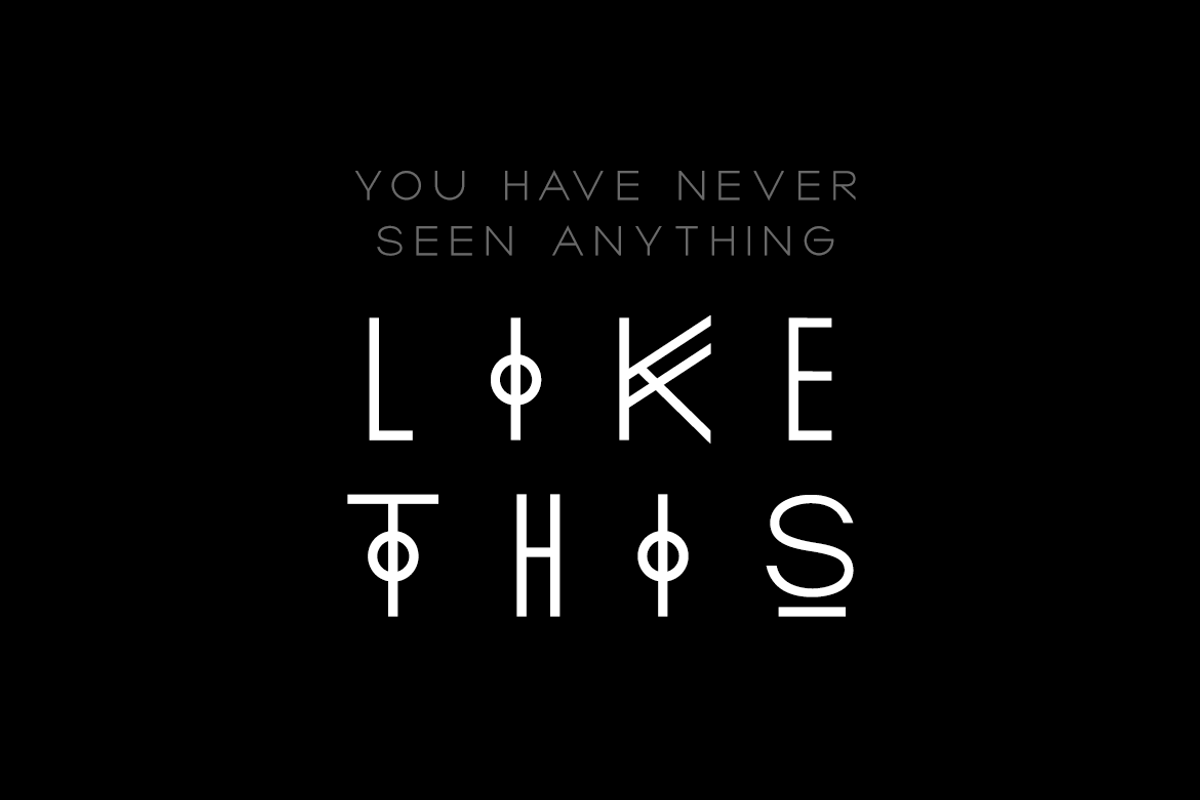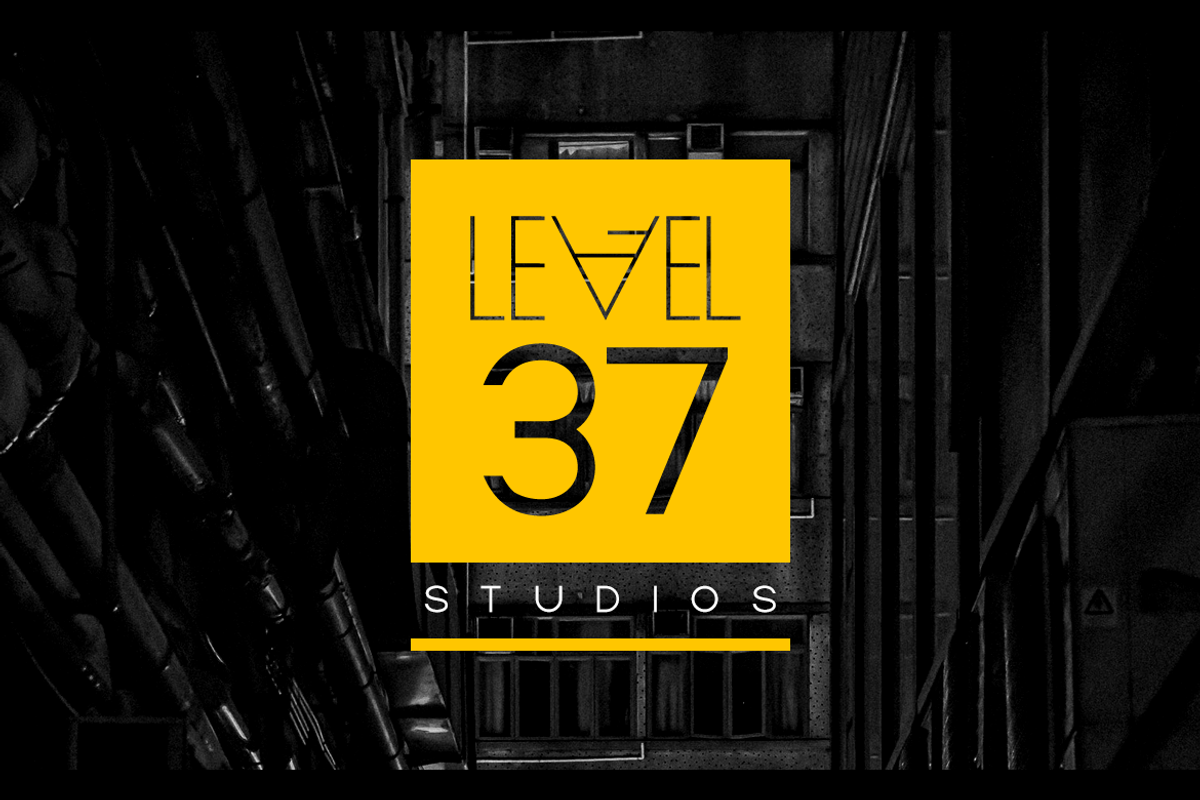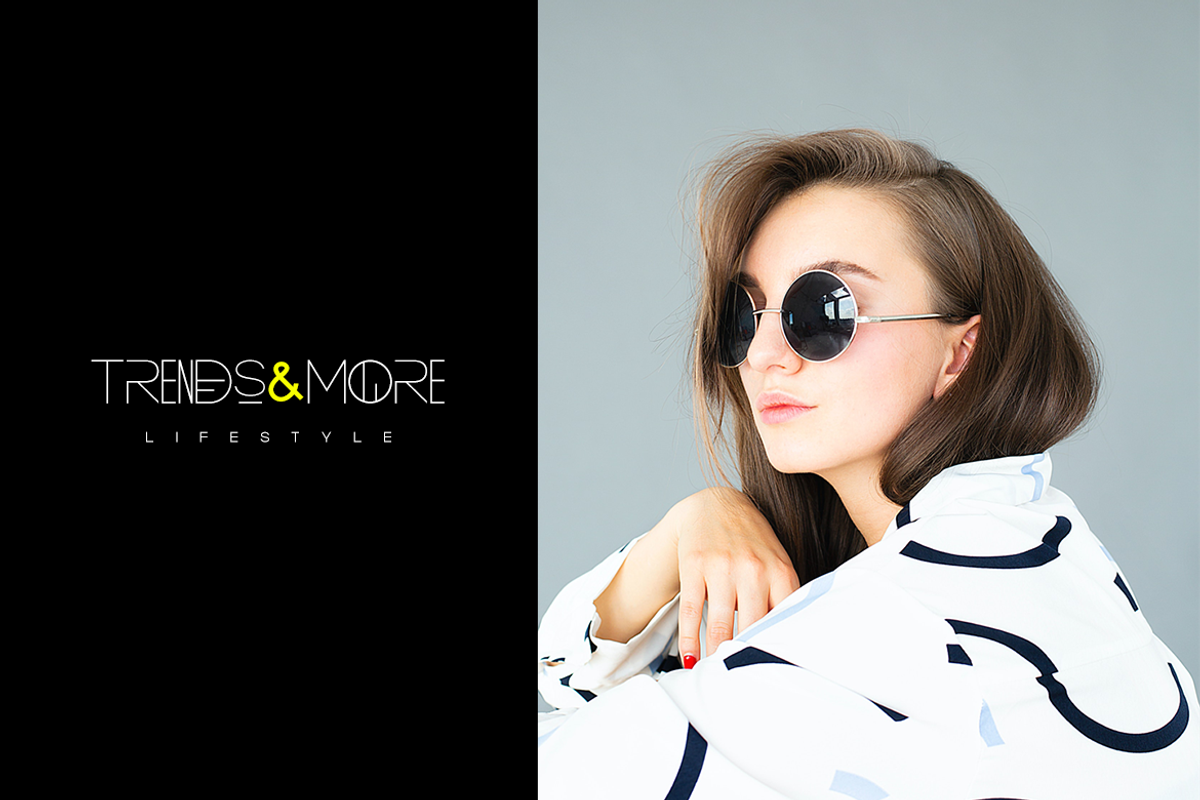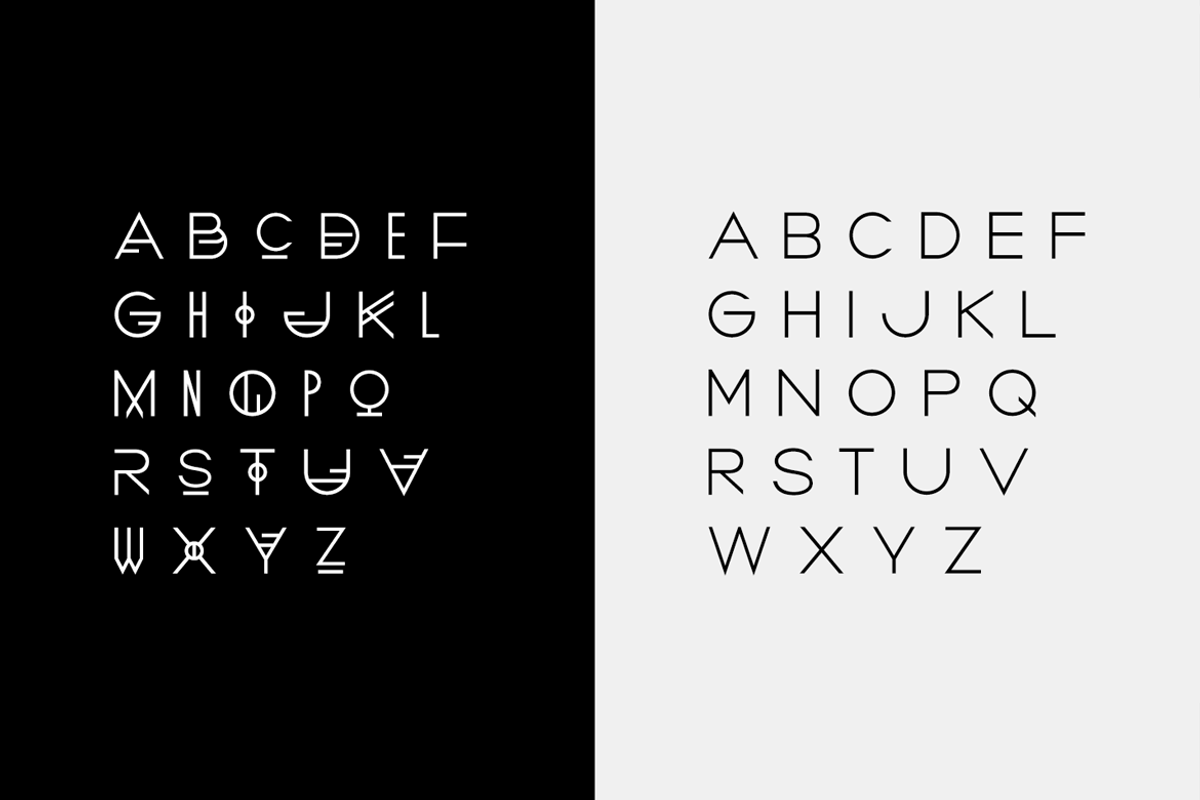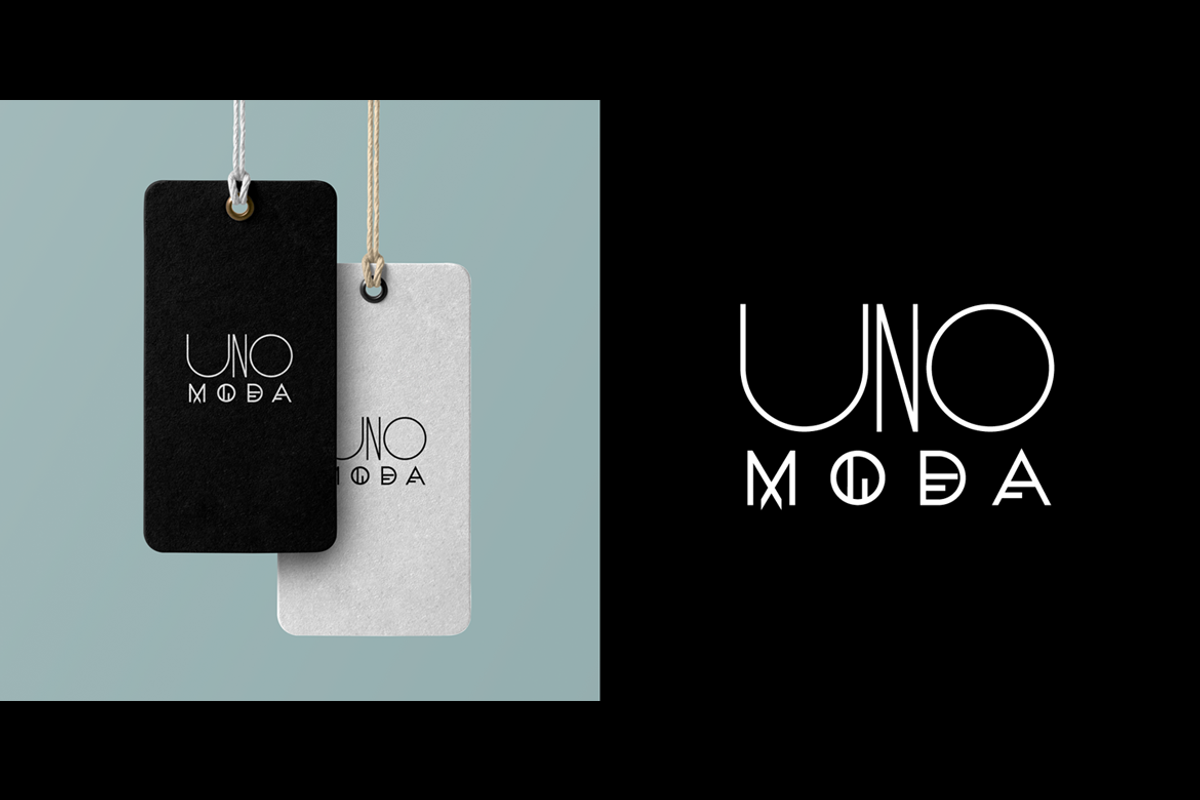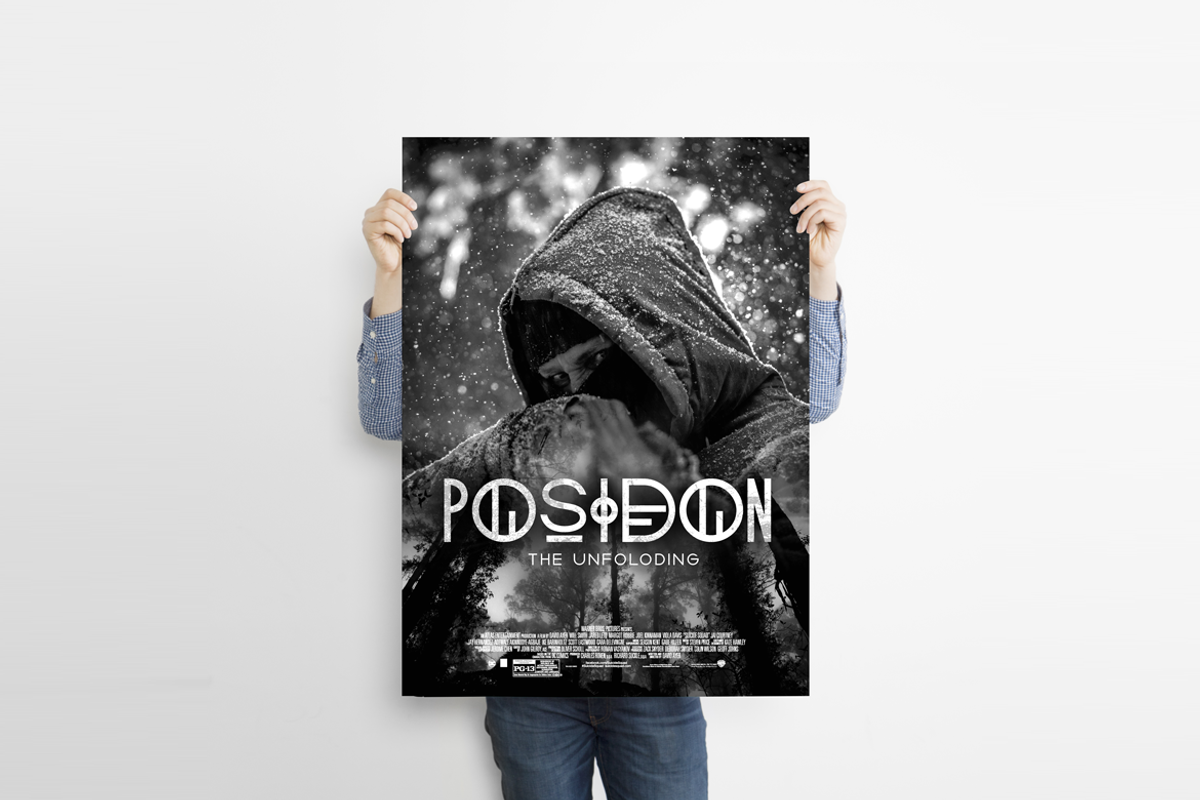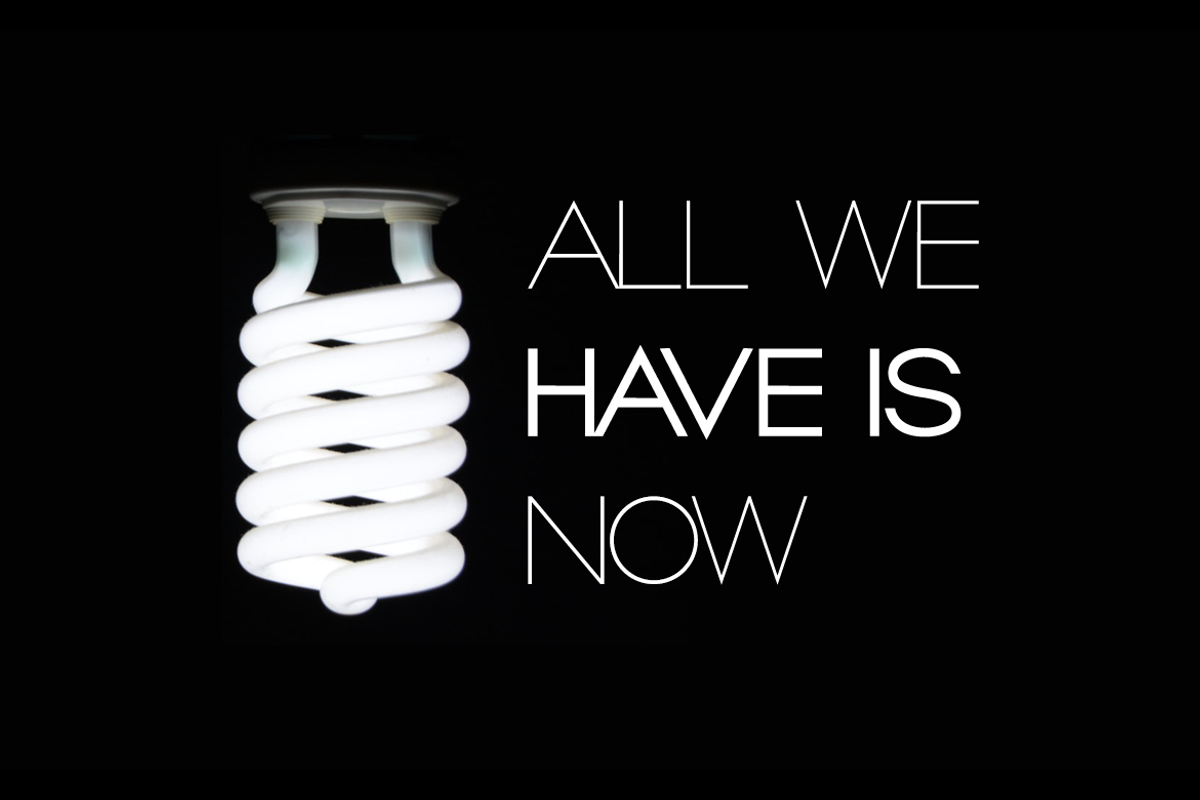
BORDEAUX - Hybrid Display Typeface
BORDEAUX - A custom handmade display typeface with unique design and hybrid lettering styles.
This all caps typeface has two different nature: the uppercase is purely simple & minimal but the lowercase is defined by unique alternatives having special design. This typeface is perfectly suitable for anything that needs to stand out from crowd, be it some Ultra Modern Branding, Techno or Cosmic Themed Designs, Haunted Movie Posters, Mysterious Arts and even the Minimal Stuffs.
BORDEAUX could be perfect choice for logo / logotype design, branding, marketing graphics, banners, posters, signage, corporate identities as well as for editorial design that can bring uniqueness. Please see the examples shown above to get an idea about the capability of this typeface.
Handcrafted and designed with powerful OpenType features in mind, each weight includes extended language support including Western European & Central European sets.